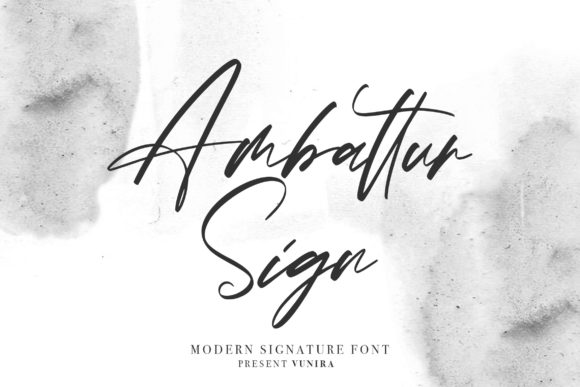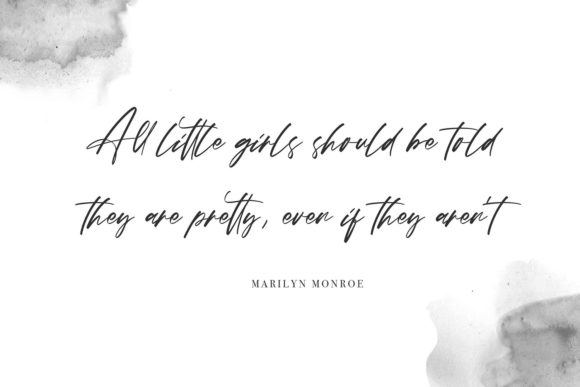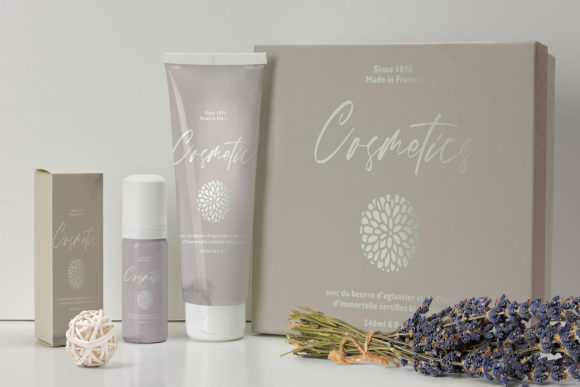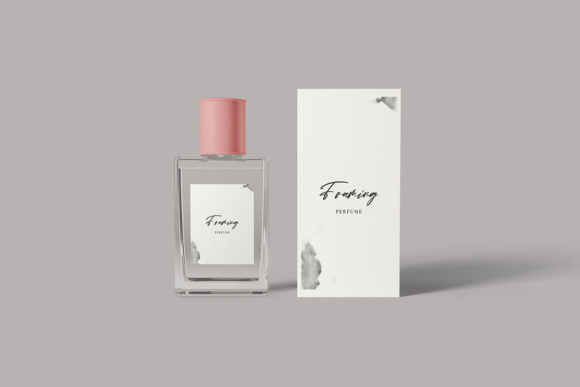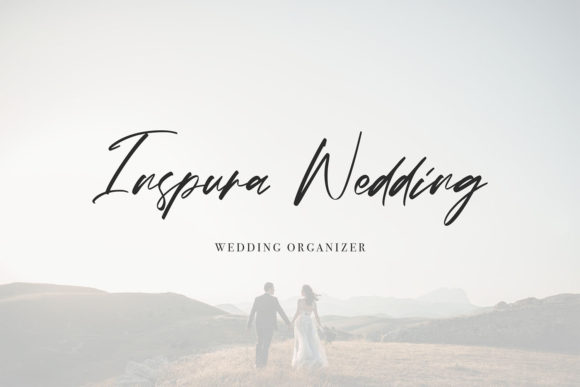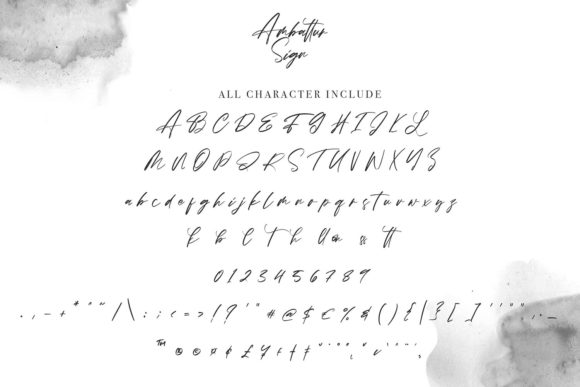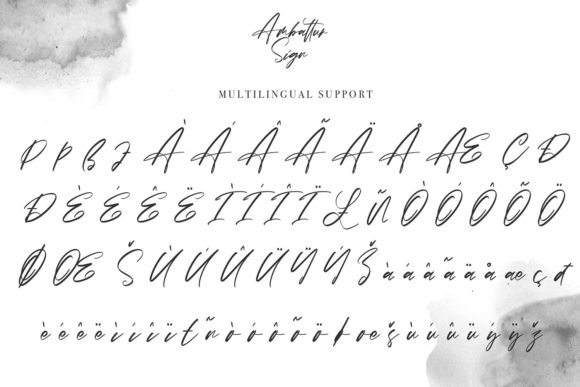
Ambattur Sign Font
About Ambattur Sign Font
Ambattur Sign feels equally charming and elegant. It features a varying baseline, smooth lines, gorgeous glyphs and stunning alternates. Get inspired by its authentic feel and use it to create gorgeous wedding invitations, beautiful stationary art, eye-catching social media posts, and cute greeting cards.